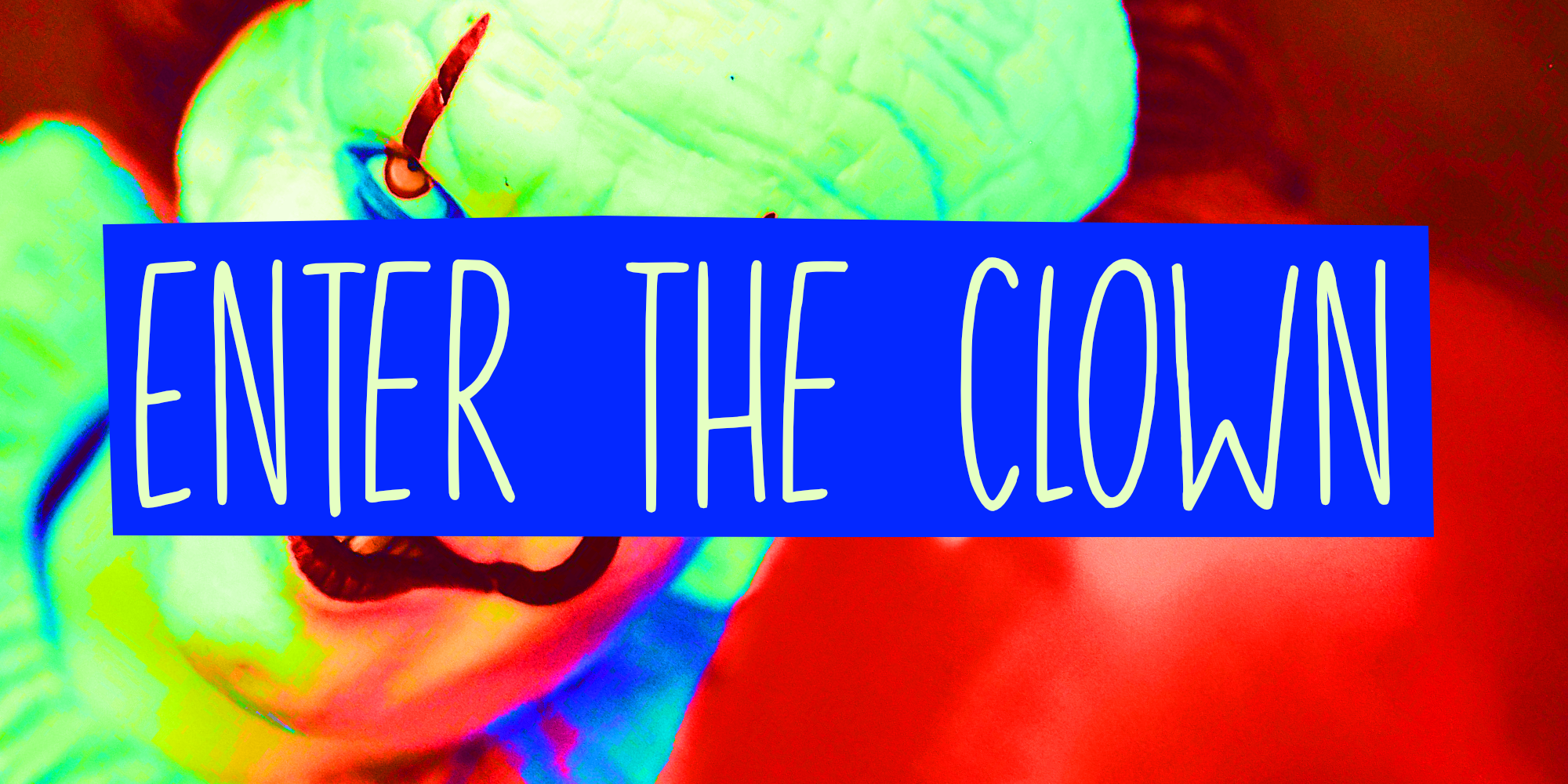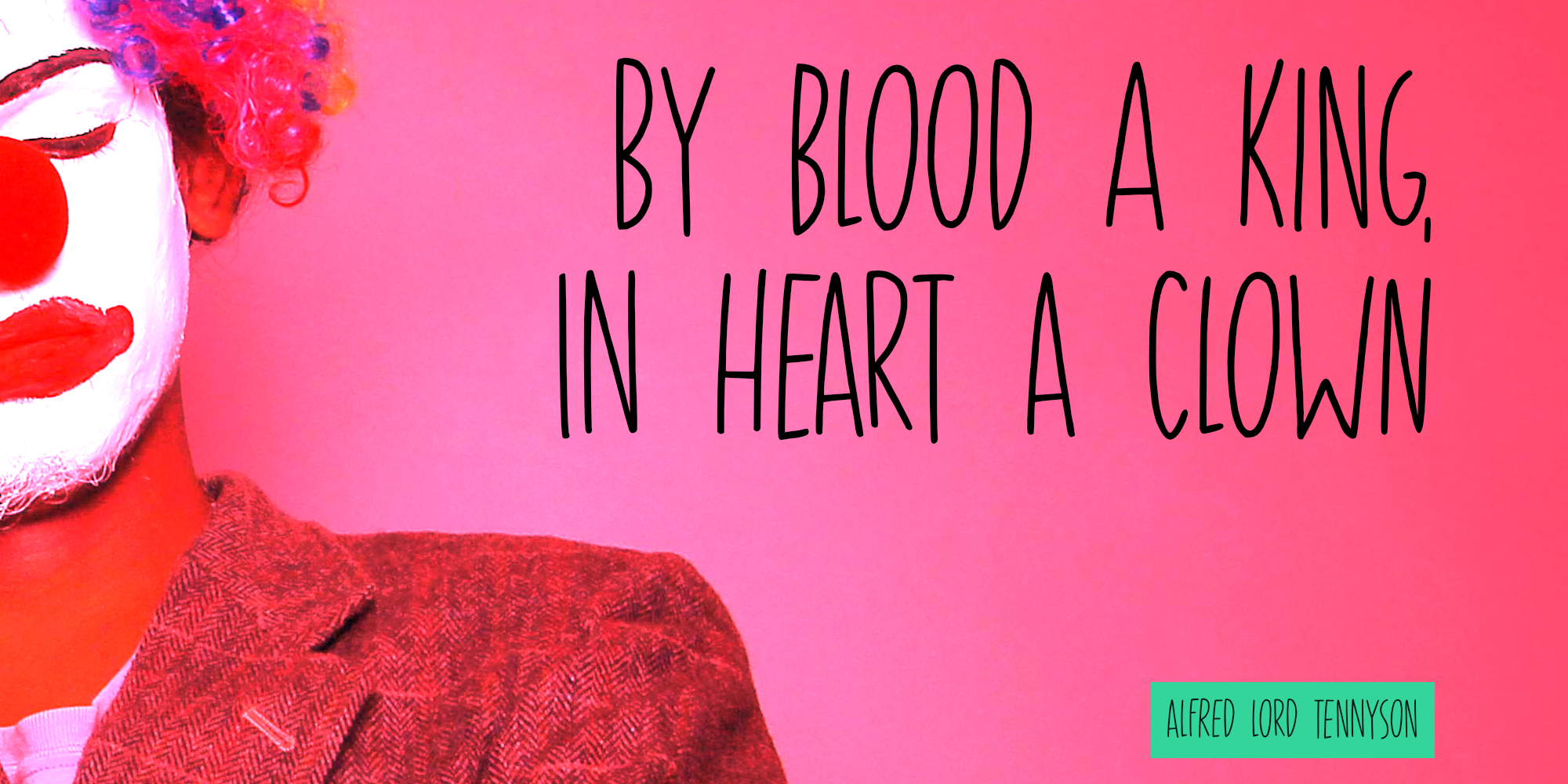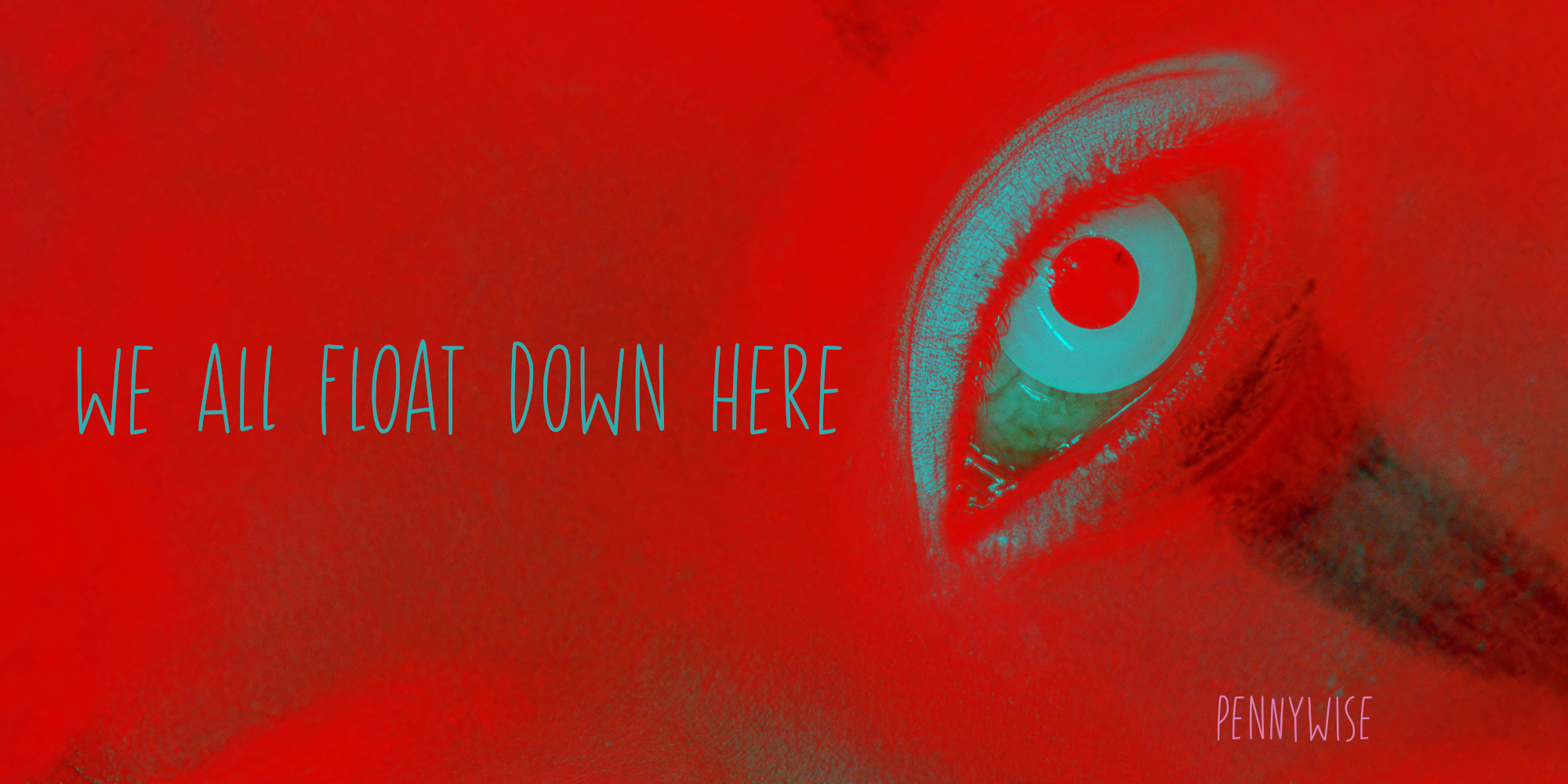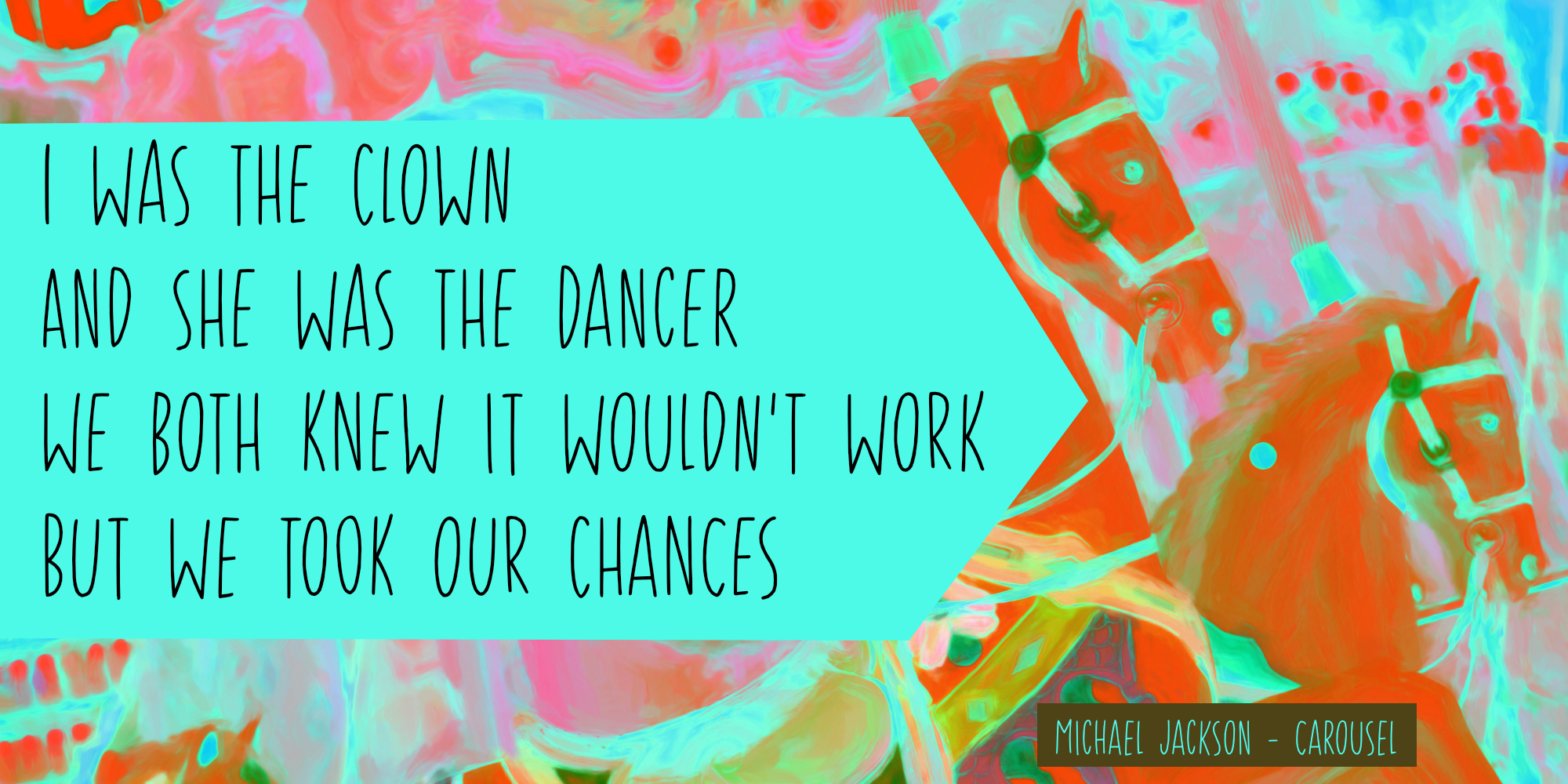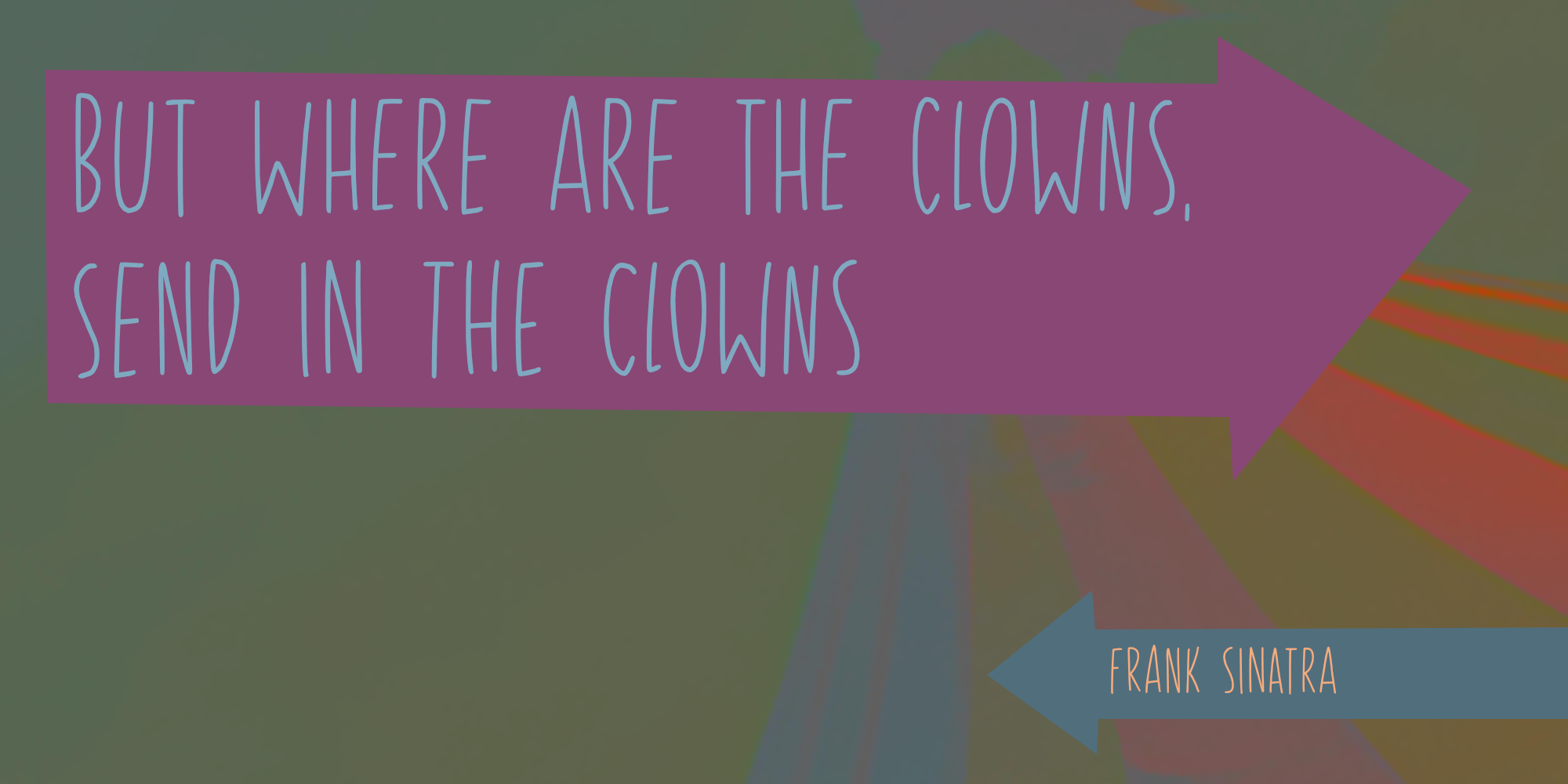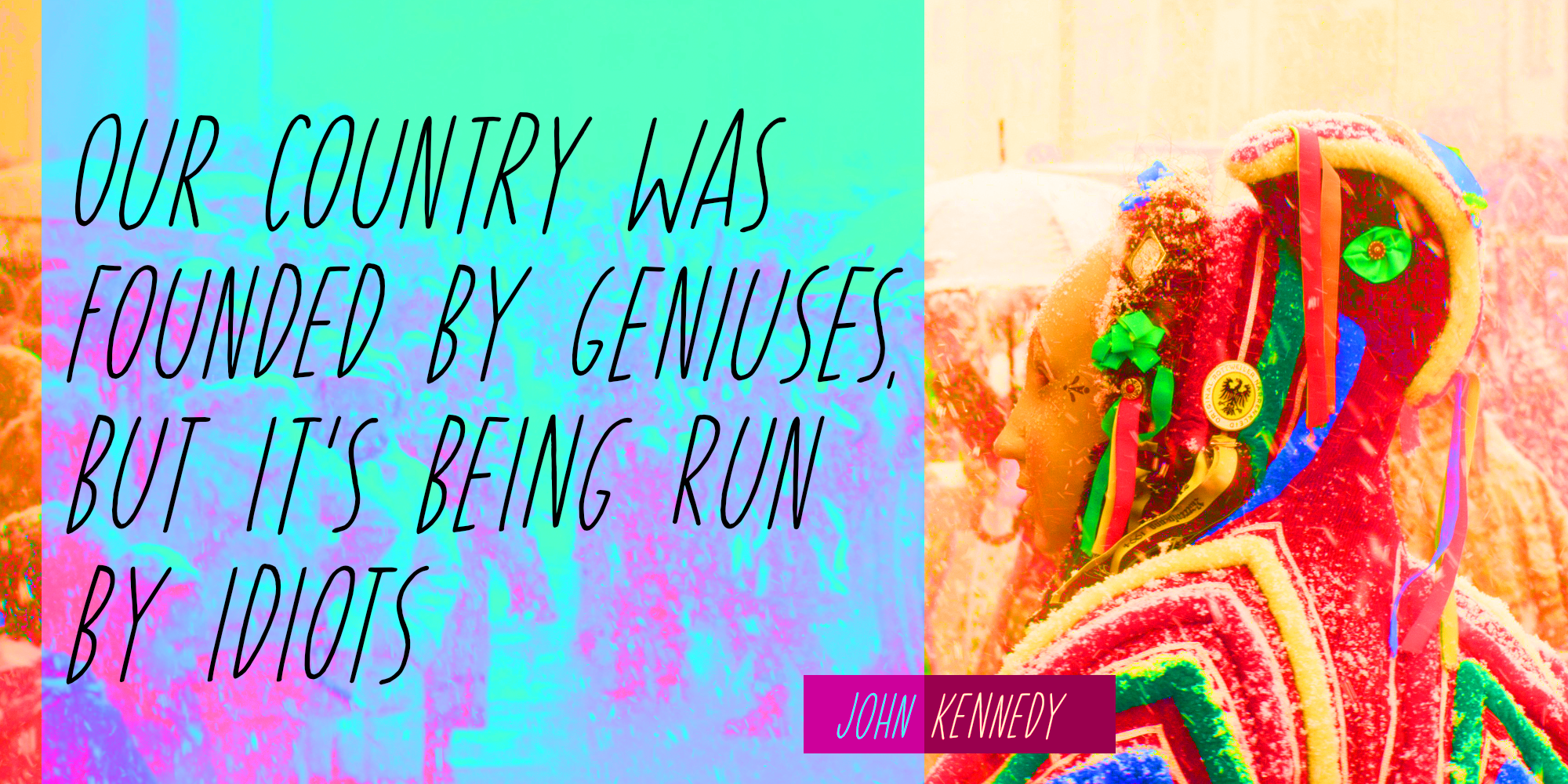
Enter The Clown (2 fonts)
Enter The Clown is a handmade, all caps display font. It is tall and thin, comes with a set of alternates and full language support. I’m not fooling you!